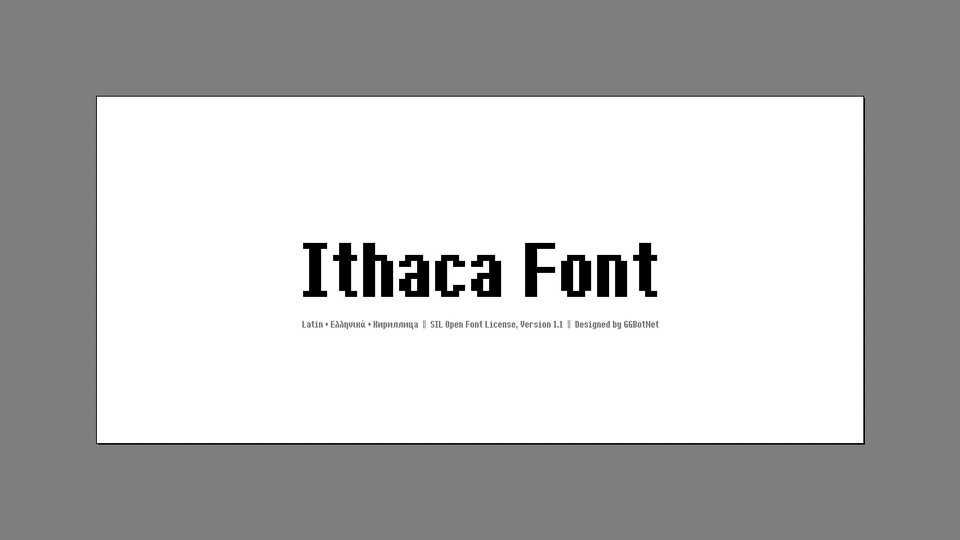
Download Ithaca font, a bold, monospaced pixel typeface inspired by vintage computer terminals and retro gaming with its blocky structure and crisp edges.